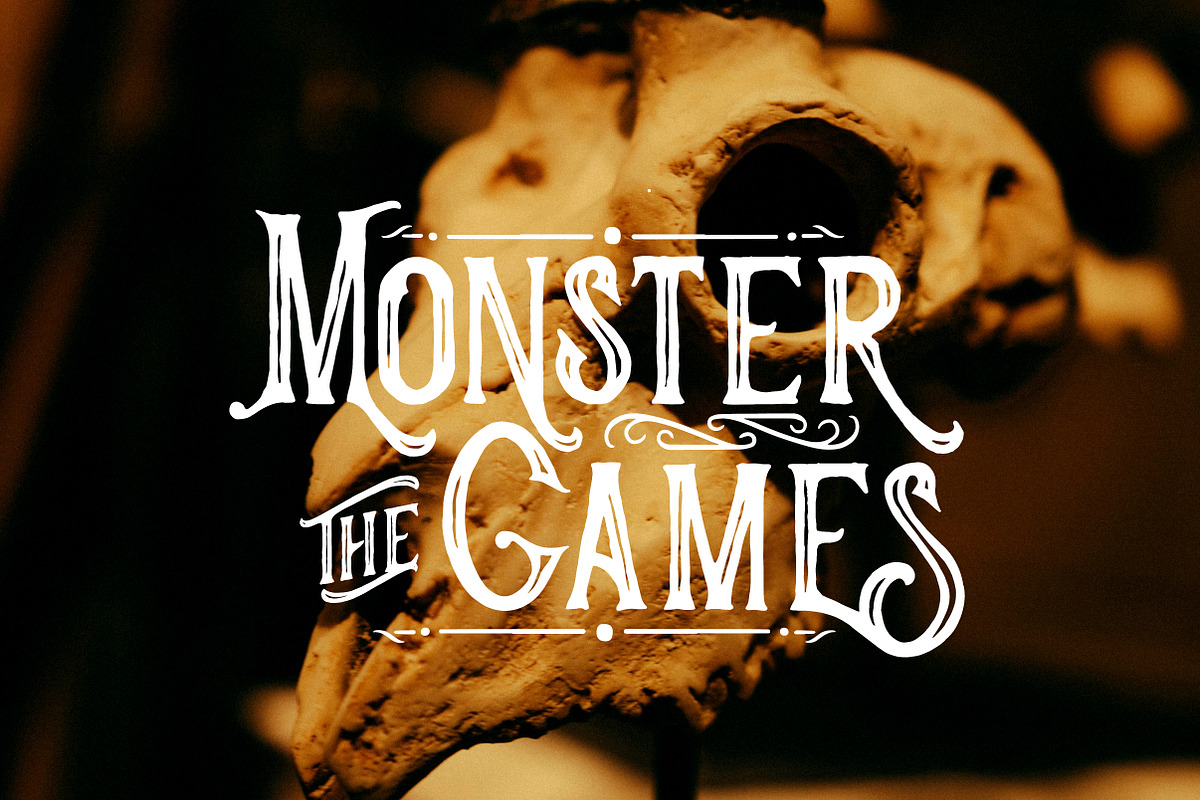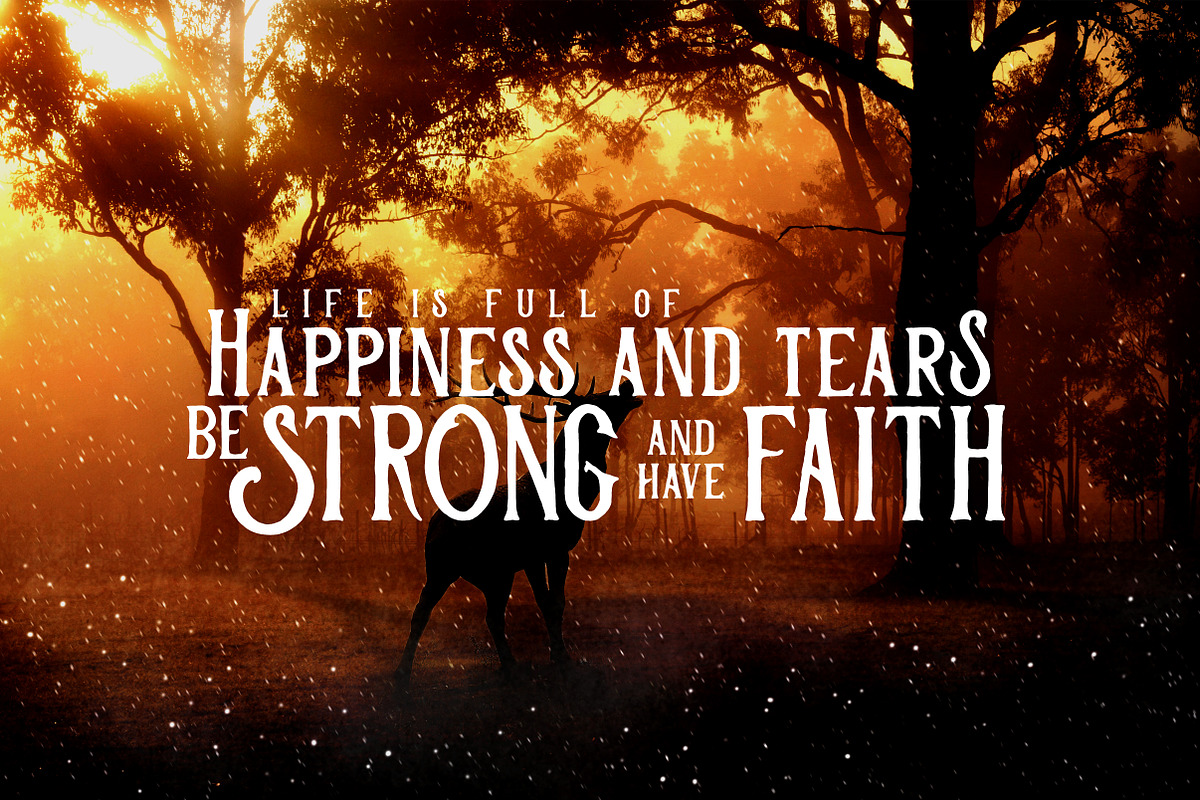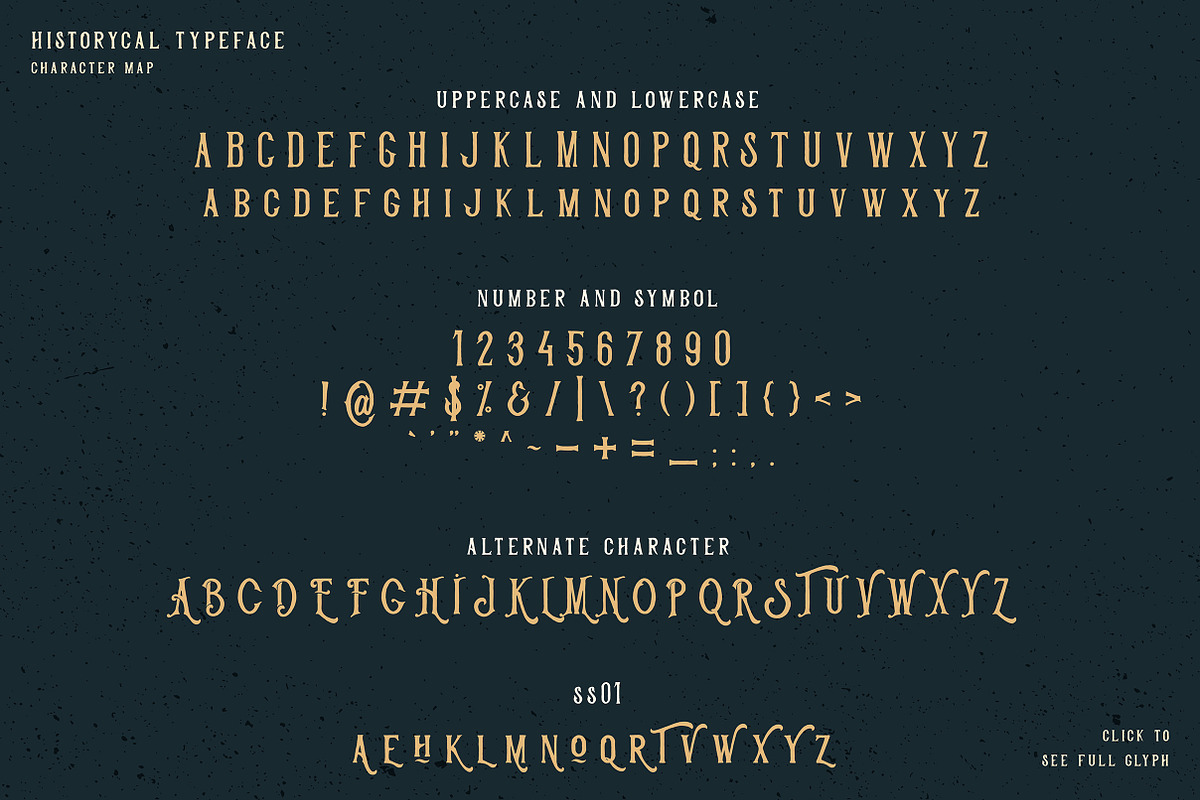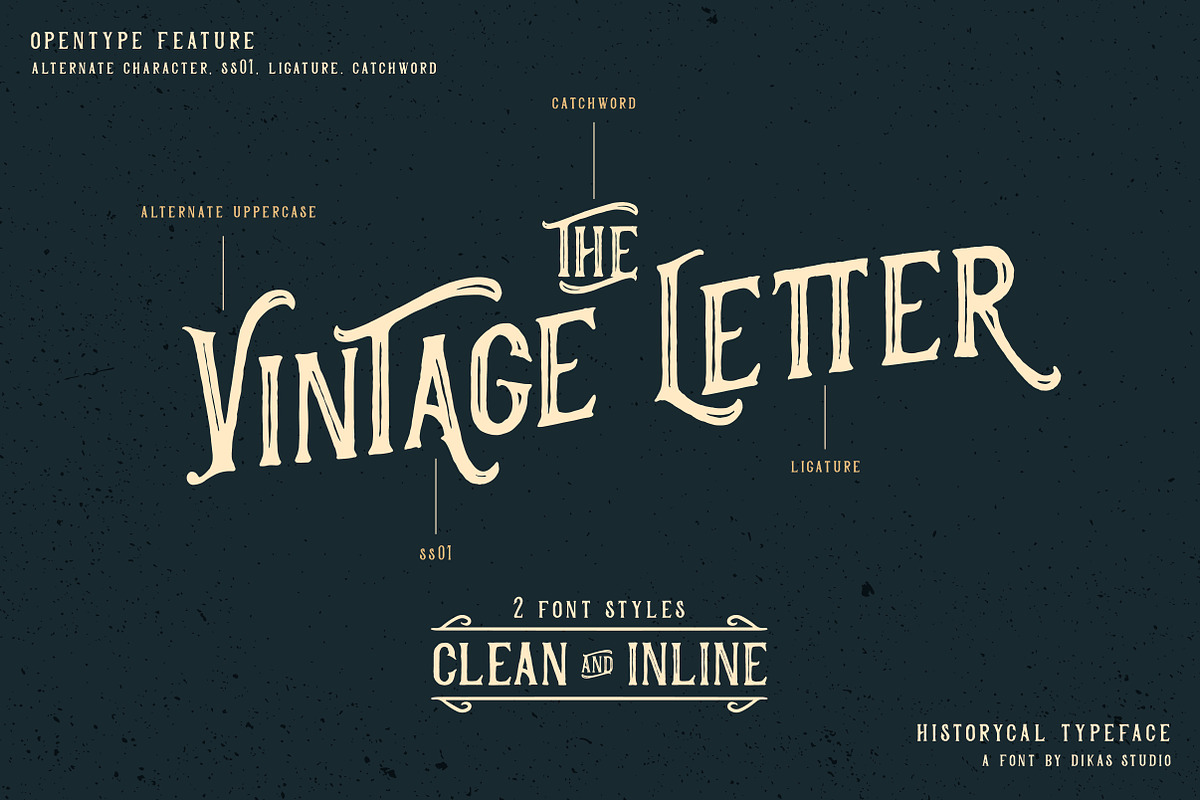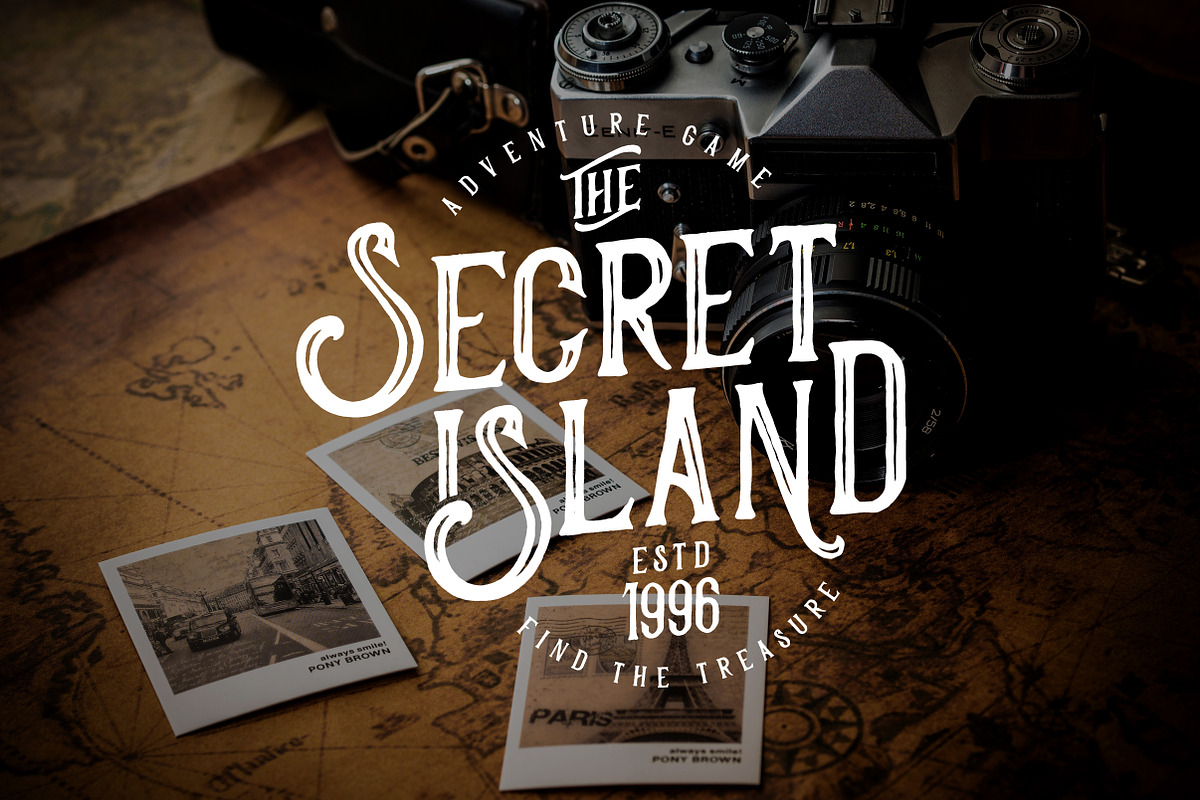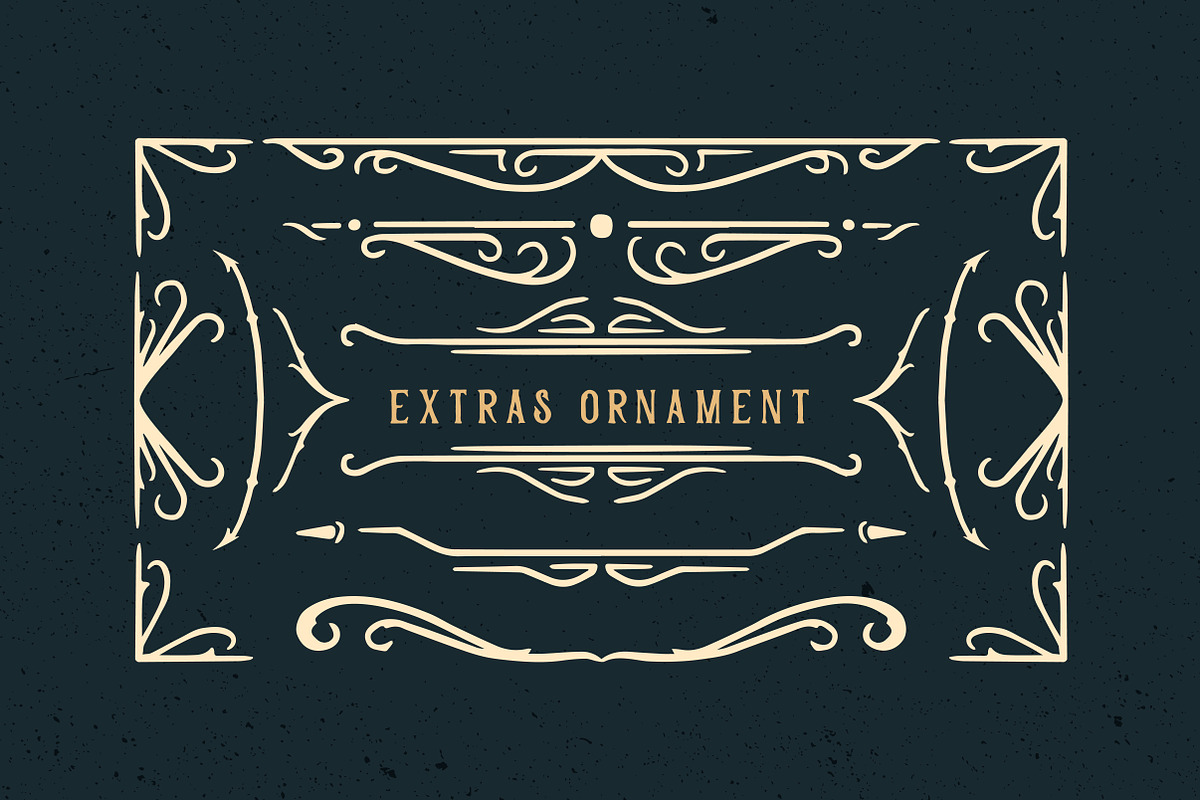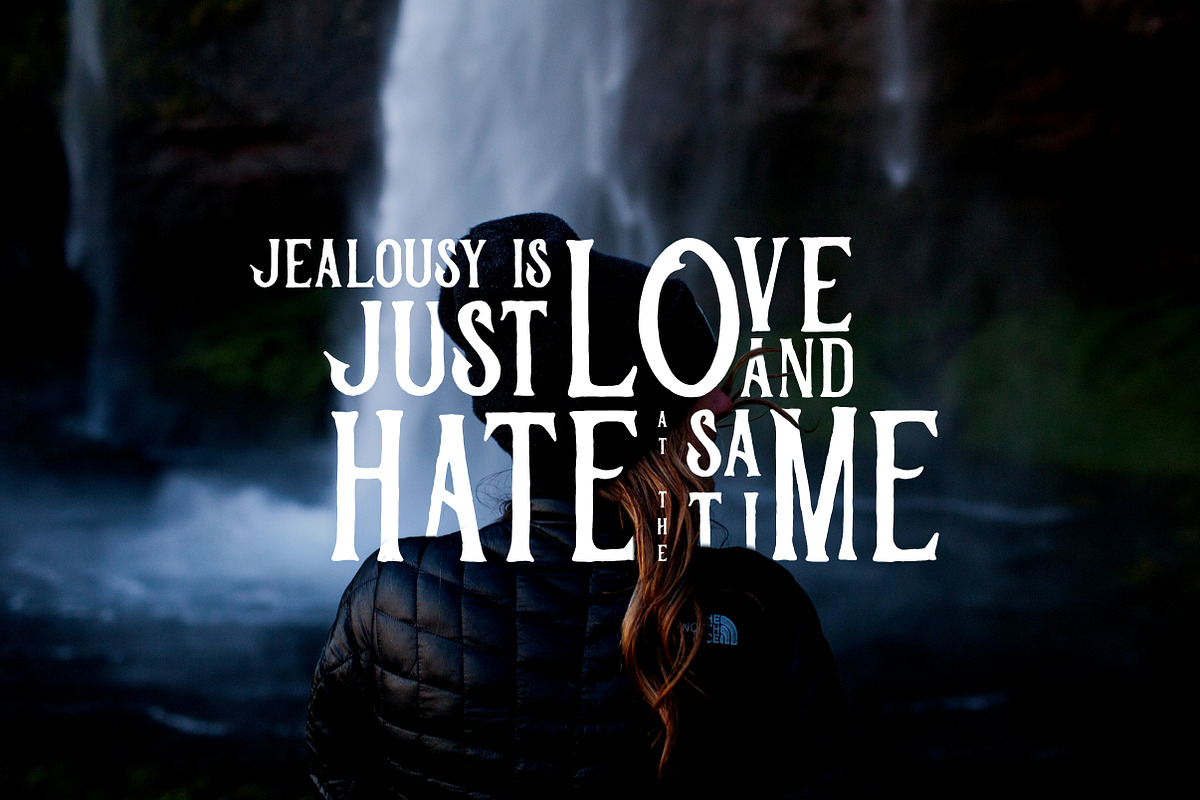
Historycal - 2 Font Styles
Yes, Historycal have 2 Style : Clean & Inline with vintage character and made by hand. The Opentype Feature give you the option to use more character and it's very helpfull to get design as you want. Suitable and applicable to create vintage design, branding, logos, product packaging, invitation, qoutes, t-shirt, label poster etc.
Punctuation and Number
Multilingual Language
Alternate Character and Ligature
Stylistic Set ( ss01 )